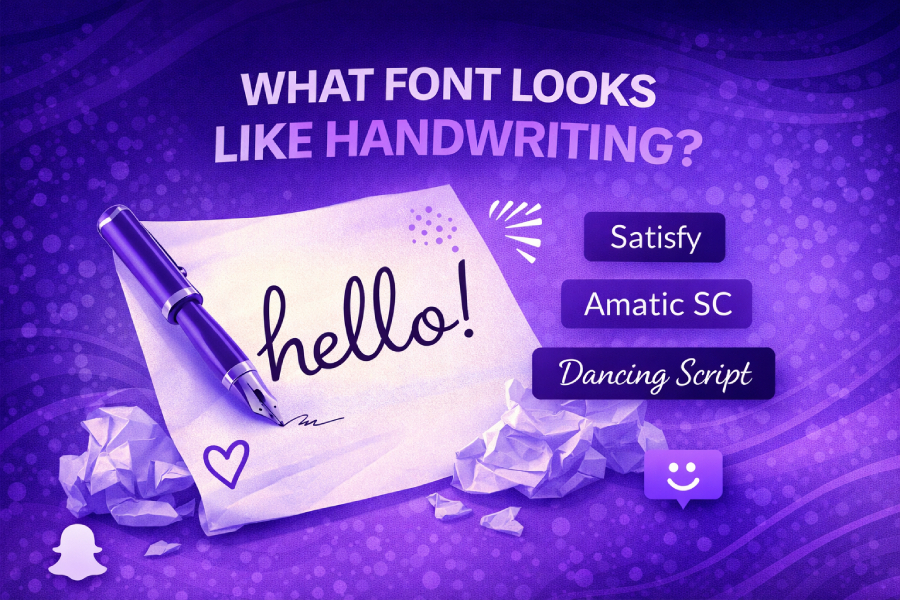
Handwritten fonts can bring an authentic, personal touch to your designs. They are perfect for adding warmth and personality to your creative projects, whether it’s a wedding invitation, a logo, or a social media post. These fonts mimic the spontaneous, imperfect nature of real handwriting, which helps create an emotional connection with the audience.
The charm of handwritten fonts lies in their ability to convey personality and humanize digital content. They are available in a variety of styles—from elegant calligraphy to casual scribbles. When used appropriately, these fonts can elevate any design, making it feel more relatable and engaging.
In this article, we’ll dive deep into the best handwritten fonts that mimic real handwriting and discuss when and how to use them. We’ll also cover tips for pairing these fonts with other typefaces to create a balanced, visually appealing design.
What Are Handwritten Fonts?
Handwritten fonts are digital typefaces designed to replicate the appearance of handwriting. These fonts range from neat, legible styles to more expressive and free-form letterforms. Some handwritten fonts aim for precision, while others embrace imperfections, giving them a more artistic and casual vibe.
A good handwritten font can add life to your designs, making them feel more human and approachable. Popular fonts like Patrick Hand and Aguafina Script give off a sense of casualness, while fonts like Amoretti and Tequila and Tacos are bolder and more expressive. Depending on your project, you’ll need to choose a font that fits the tone and message you want to convey.
Types of Handwritten Fonts
Handwritten fonts are categorized into several styles, each suited for different types of projects. Some of the most popular types include casual handwritten fonts, calligraphic fonts, brush fonts, and script fonts.
• Casual Handwritten Fonts: These fonts resemble everyday handwriting, often used for informal projects. Fonts like Patrick Hand and Permanent Marker are great examples. They add a friendly, approachable feel to designs and are perfect for social media posts or casual invitations.
• Calligraphic Fonts: These fonts are more decorative and elegant. Calligraphic fonts mimic the strokes of a traditional pen or brush, making them ideal for formal invitations, wedding stationery, or luxury branding. La Belle Epoque is a popular calligraphic font known for its stylish curves.
• Brush Fonts: These fonts are inspired by the strokes made with a brush pen. They have a bolder, expressive look and are used for designs that require a creative, artsy vibe. Fonts like Brush Script and Amoretti are great examples.
• Script Fonts: Often flowing and connected, script fonts have a cursive look. They are elegant and ideal for formal occasions like weddings or high-end branding. Dancing Script and Pacifico are examples of script fonts that create an elegant yet approachable look.
When to Use Handwritten Fonts in Design
Handwritten fonts are best used in specific design contexts that evoke emotion, creativity, or authenticity. Here are some common use cases for handwritten fonts:
• Invitations and Greeting Cards: Handwritten fonts add a personal touch to invitations and greeting cards. Fonts like Aguafina Script and Patrick Hand help create a warm, inviting atmosphere.
• Social Media and Branding: Handwritten fonts are commonly used in branding to give a brand a more personal and relatable feel. Fonts like Amoretti, Tequila, and Tacos can make your branding more engaging and humanize your message.
• Web Design: For websites, handwritten fonts can be used for headers, call-to-action buttons, or testimonials. However, when using handwritten fonts for body text, make sure the font is legible and easy to read.
• Marketing and Ads: Handwritten fonts are also used in advertisements to create an informal, inviting feel. Whether it’s for a casual campaign or a more creative, artistic ad, a handwritten font adds a layer of warmth and personal connection.
Handwritten fonts are ideal for designs that need to feel authentic and personal. But it’s important to use them sparingly in body text to maintain readability. Additionally, learning more about transforming healthcare operations through font choices can help your brand adapt to various audiences.
When using handwritten fonts, always consider the project’s tone, the font’s legibility, and the context in which it will be used. Additionally, pairing handwritten fonts with other typefaces can create a balanced and cohesive design that is both stylish and functional.